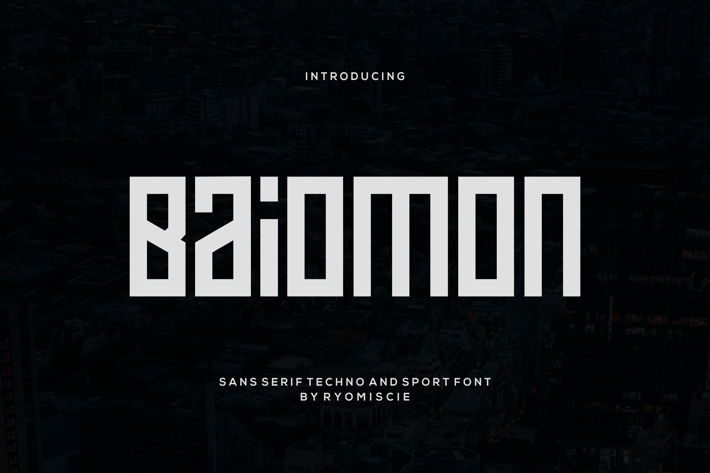
Baiomon - Sans Serif Techno And Sport Font
Introducing our new product Baiomon - Sans Serif Techno And Sport Font
Baiomon - Modern Font is a bold and authentic display font. The font is suitable for any branding project like logo,
t-shirt printing, esport, and many more. outstanding in a wide range of contexts.
Baiomon Uppercase
Baiomon Lowercase